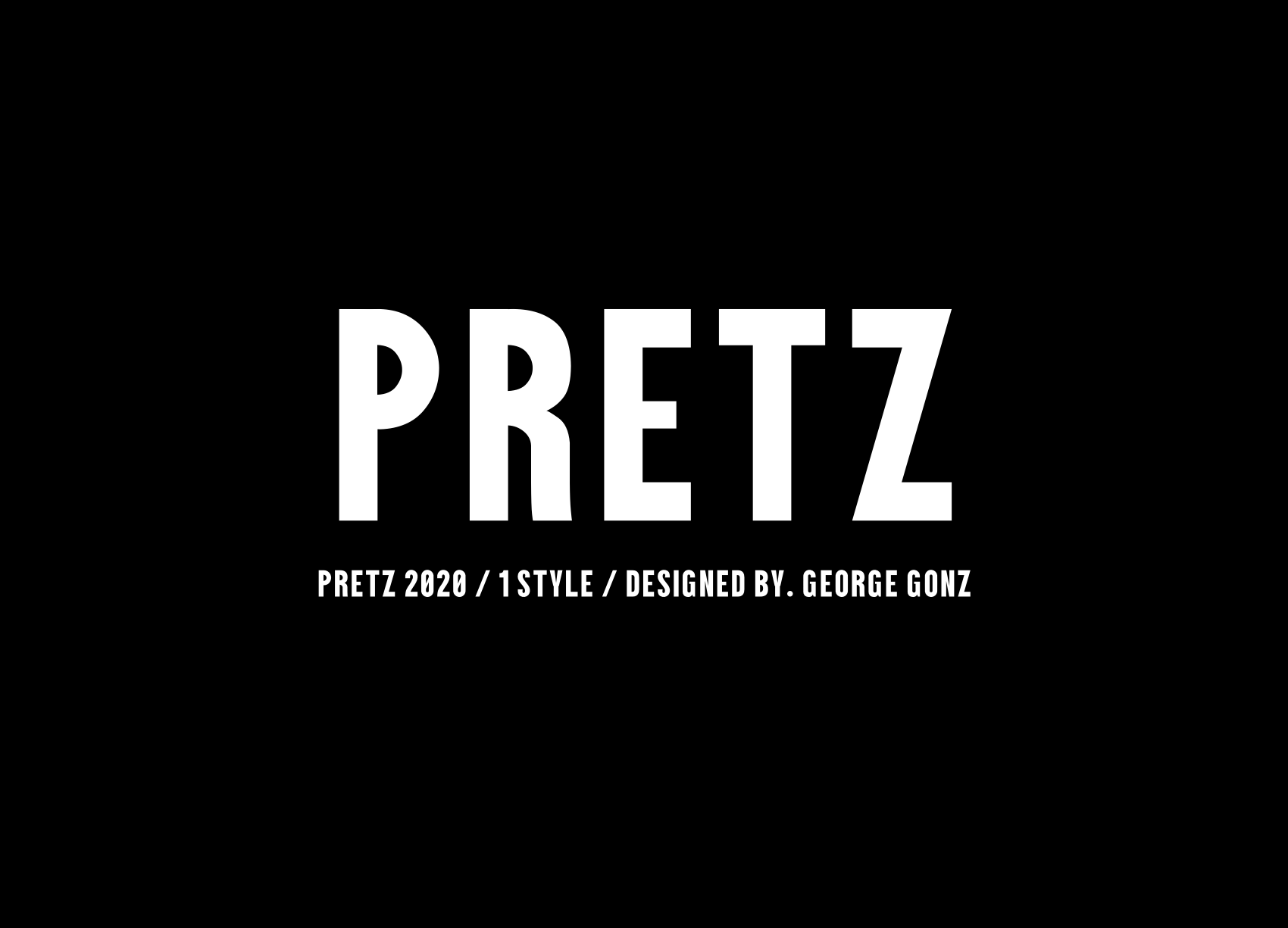
Pretz Typeface
Pretz tyepeface, is a condensed style typography specially designed for use in independent projects such as festival posters, film and editorial titles and titles with great visual projection.